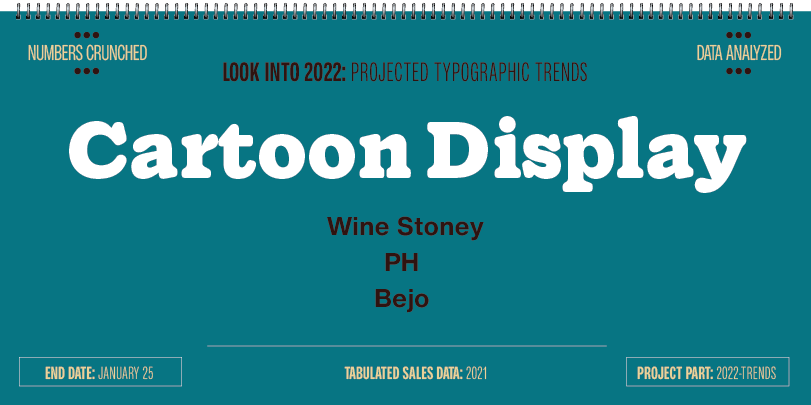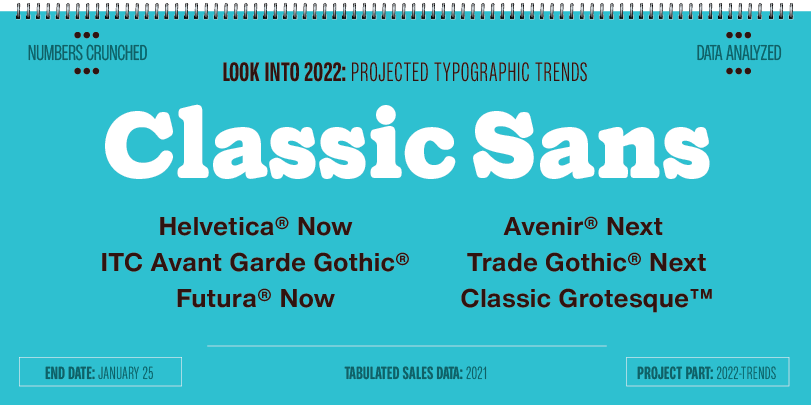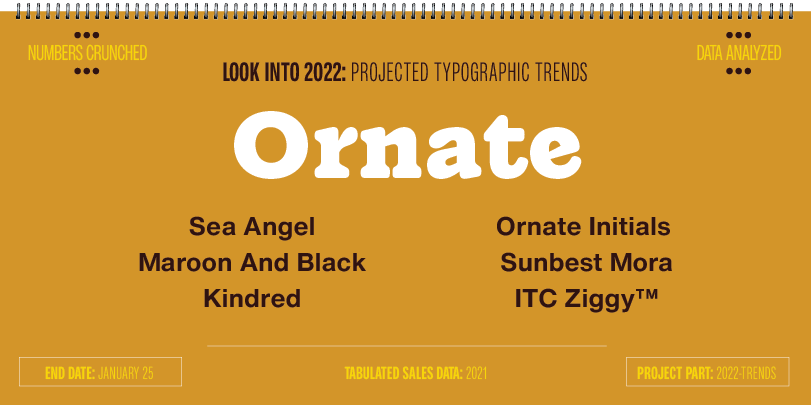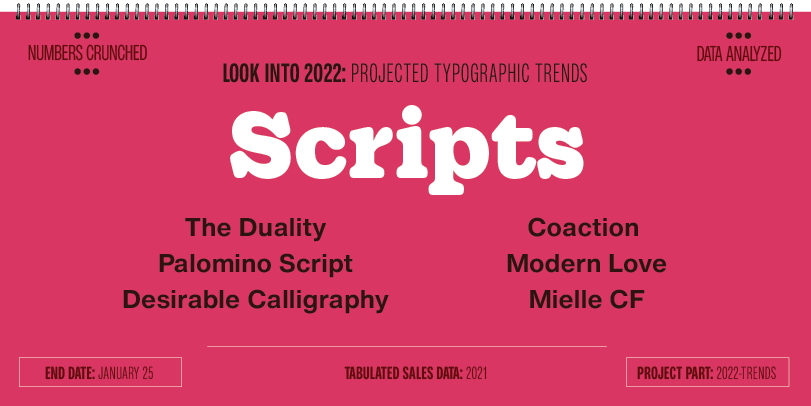
2022 MyFonts Font Trends for Designers to Use this Year
Trends for 2022
lighthearted scripts, industrial-strength sans serif designs, and heavyweight display typefaces were high on the popularity charts.
Last year’s “Type Trends” guidance was about creating typographic surprises, bespoke fonts, using evocative typefaces to tell a story, and the merging of art and technology. As far as typefaces go, lighthearted scripts, industrial-strength sans serif designs, and heavyweight display typefaces were high on the popularity charts.
So, what kind of typefaces are going to be hot in 2022? We looked into the fonts that have been trending over the last several weeks, checked out the winners in several typographic design competitions, and talked with the type experts at MyFonts, to help us answer this question.
Here’s what we came up with. The typeface trends in 2022 will be:
• A resurgence of classic sans serif designs
• New interest in baroque fonts
• Display typefaces, with a cartoon vibe
• New serif typefaces that are friendly and outspoken
• Three flavors of scripts finding new popularity
• Variable fonts continuing to trend
more use of lighthearted scripts
Font Trend #1: Classic Sans
While new sans serif typefaces seem to be released daily, the traditional classics are not only still the best sellers, they’re also beginning to see an up-tick in their use. Why? Because these designs are able to address virtually any typographic need, are easy to recommend to branding clients and several have been updated with many improvements.
Designs like Classic Grotesque™ and Futura® Now infuse the demeanor of the original designs with 21st century aesthetics. Helvetica® Now and Trade Gothic® Next are classic designs updated for modern imaging needs. ITC Avant Garde Gothic® and Avenir® Next are geometric sans serif families that approach the design ethic in very different ways. While Proxima Nova™ bridges the gap between typefaces like Futura  Now and Classic Grotesque, combining modern proportions with a geometric vibe.
Font Trend #2: Ornate
These are designs adorned with flamboyant swashes, sensuous character strokes, demonstrative interlocks and ornate character shapes. They may not rate high on the legibility scale, but are sure to attract attention, create memorable wordmarks and build headlines that are a visual delight. They’re the flowers in font gardens, and easily brighten-up an otherwise dull page.
Sea Angel, Maroon And Black and Sunbest Mora are delightfully complex confections. They have enough alternate characters, swash designs and ligatures to create lively headlines, wordmarks and packaging. There are also more subdued designs, like Kindred, a playful capitals only sans serif design, that sports a bevy of alternate characters. Think: fedora with a jaunty feather. ITC Ziggy is part Art Nouveau, part 70s psychedelic and 100% fun. The Ornate Initials family is three sets of decorative capital letter fonts that enliven a page, introduce paragraphs – and even serve as graphic illustrations.
Font Trend #3: Display Typefaces With a Cartoon Vibe
Cartoon fonts look like they came right out of a comic strip or graphic novel. They have a hand-drawn appearance, informal structure, and, more often than not, a whimsical disposition. They’re trending because they bring a human, lighthearted vibe to headlines and short blocks of text copy. The design’s popularity stems from their warm, friendly, and lighthearted qualities that we all crave these days. These fonts can also add impact to a headline and a bit of humanity to short blocks of text copy.
Wine Stony Cartoon isn’t exactly cute and cuddly. But that just goes to show that typefaces can be graphic chameleons, easily adapting to a variety of environments. Set Wine Stony Cartoon at small sizes and its rough edges go away. Set it large in a pleasing color and you’ve got a bit of earthy charm. Ghost Childs and Bejo are plus-size designs that are commanding and approachable, while the PH family has enough weights, proportions, handy icons, and word banners to fill a shipping container.
Font Trend #4: Distinctive Serif Typefaces
There are no crystal goblets here. These typefaces are not transparent containers for textual content. (So much for Beatrice Warde’s advice.) They’re fonts that make a statement. They tend to have a friendly demeanor and, because they have serifs, carry a certain amount of gravitas. Look around, and you’ll find these designs – and others like them – in a growing number of applications.
The Blacker Pro family has text and display variants galore, in normal and condensed proportions, plus a score of titling fonts. It’s enough fonts that Blacker Pro is equally at home in long form text copy and on-demand content, as it is in billboard headlines. Cotford™ is a new family of elegant display and robust text fonts. The display designs are ideal for branding, editorial displays, and logotypes, while Cotford’s text designs are ideal for lengthy copy in print and on screen. Gazpacho and Imagist are the two “happy feet” in the list. Gazpacho’s serifs are friendly and inviting, while those in Imagist are expansive and flowing. Sweep Poster melds the weight stress of old style designs, the dramatic elegance of 18th century Didones, and a charming panache in characters like the a, e and g, to create a design that is both distinctive and handsome.